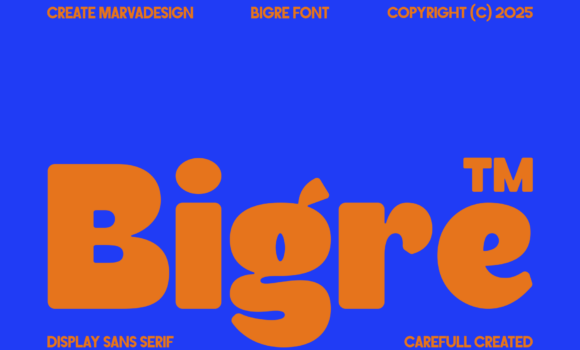
bigre
Bigre Font – Free Download Introduction to Bigre Font **Bigre** is a contemporary display sans serif typeface that takes its name from the fusion of “Big” and “Ogre,” reflecting its massive presence and bold personality. 📸 Preview Gallery 6 images